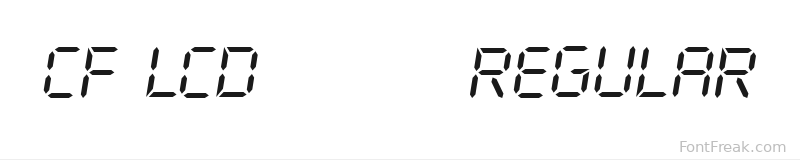
CF LCD 521 Regular
CF LCD 521 Regular by Cloutierfontes is a striking display font that falls into the category of sans-serif. This font features a unique visual style characterized by its bold, geometric shapes and a consistent stroke weight that exudes modernity. The letters are designed with minimal contrast, providing a clean and straightforward appearance that enhances readability. The spacing between the characters is well-balanced, allowing for easy legibility while maintaining an engaging visual flow. The overall design is reminiscent of digital displays, making it a perfect choice for contemporary projects.
This font is versatile and can be utilized in a variety of contexts. It works exceptionally well for technology-related branding, such as app interfaces and website headers, where clarity and modern aesthetics are paramount. Additionally, CF LCD 521 Regular is ideal for promotional materials like flyers and banners, where boldness and attention-grabbing qualities are essential. It can also enhance the look of product packaging, giving a sleek and professional touch. For graphic designers and content creators, this font is a valuable asset for crafting eye-catching presentations and social media graphics, ensuring that messages are communicated effectively.
The target audience for CF LCD 521 Regular includes graphic designers, small business owners, and anyone in need of impactful typography for their visual projects. Its clean and modern aesthetic appeals to a broad range of users looking to make a statement without sacrificing readability.
What sets CF LCD 521 Regular apart is its ability to blend simplicity with a bold character, making it an excellent choice for both digital and print applications. Whether you're looking for a font that stands out in a crowded marketplace or one that complements modern design trends, CF LCD 521 Regular font free download offers a unique solution that enhances any project.